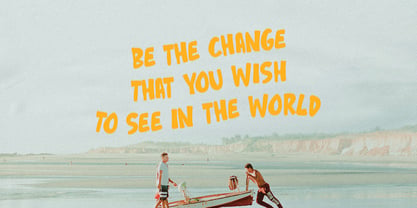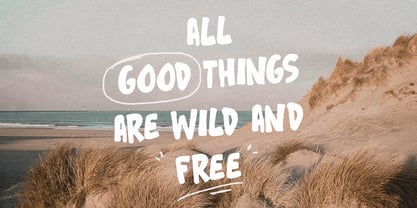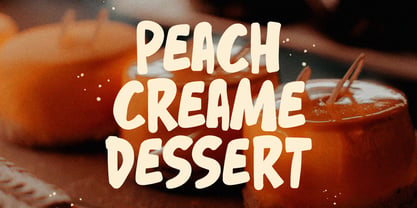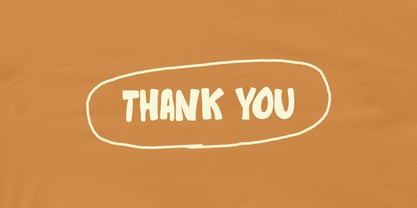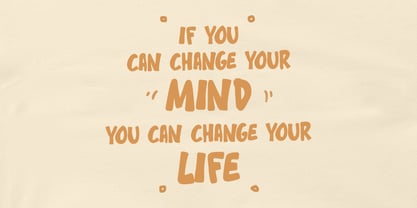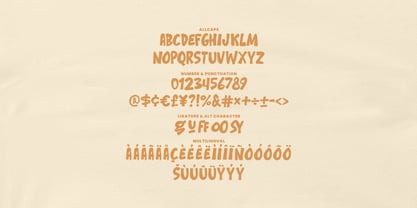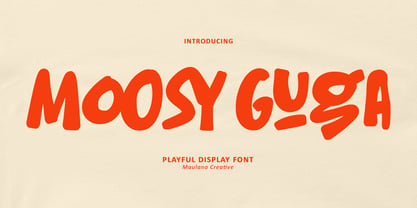
MC Moosy Guga
by Maulana Creative
The MC Moosy Guga Font Family was designed by Gilang Maulana and published by Maulana Creative. MC Moosy Guga contains 1 styles. More about this family
Introducing Moosy Guga - The Ultimate Playful Display Font! Dive into a world of fun and whimsy with Moosy Guga, a vibrant and bubbly display font that instantly adds character and charm to any project. Inspired by hand-drawn, chunky lettering, this font is designed to stand out and bring a smile to your audience's faces. Perfect for: - Branding & Logos: Create memorable, friendly brand identities. - Children's Designs: Ideal for books, toys, and educational materials. - Packaging: Make your product labels pop off the shelf. - Social Media & Quotes: Generate eye-catching graphics and quote images.